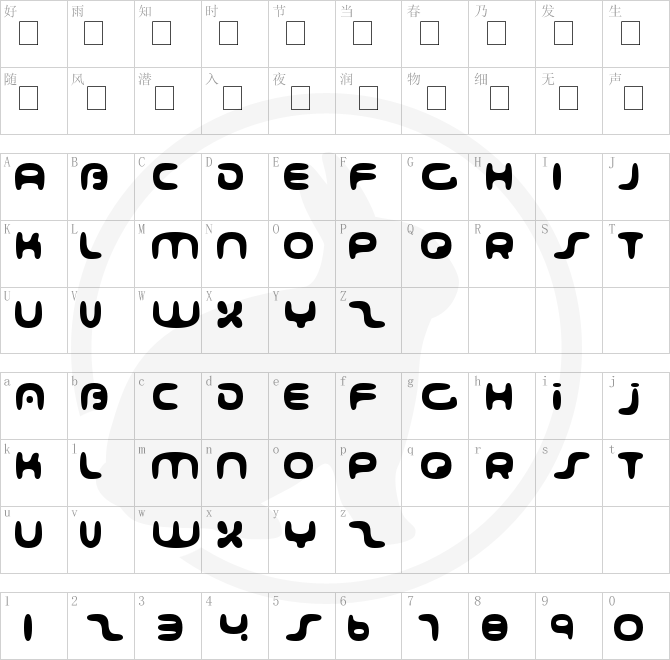
- Font Name:001 Interstellar Log
001-Interstellar-Log.ttf is a very beautiful artistic font, 001-Interstellar-Log.ttf is widely used in the design and printing of various books and pictures,001-Interstellar-Log.ttf has a strong visual impact,001-Interstellar-Log.ttf is a commonly used font in newspapers, magazines and books, and is used in posters, e-commerce Poster design, store design, logo design, font design and other fields.001-Interstellar-Log.